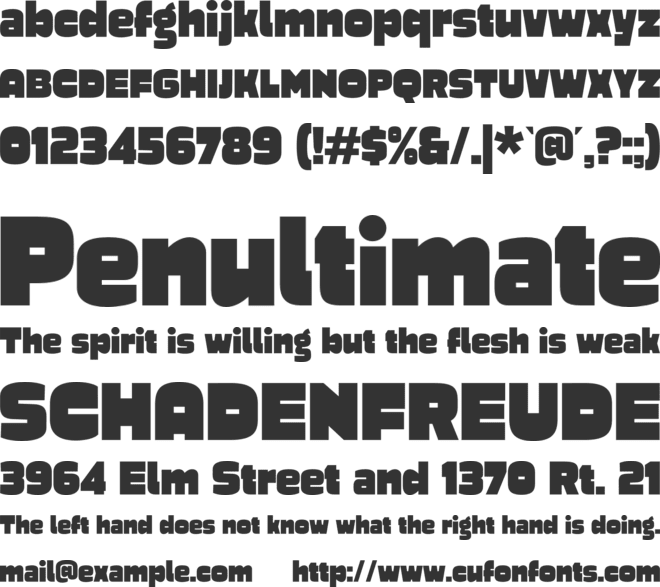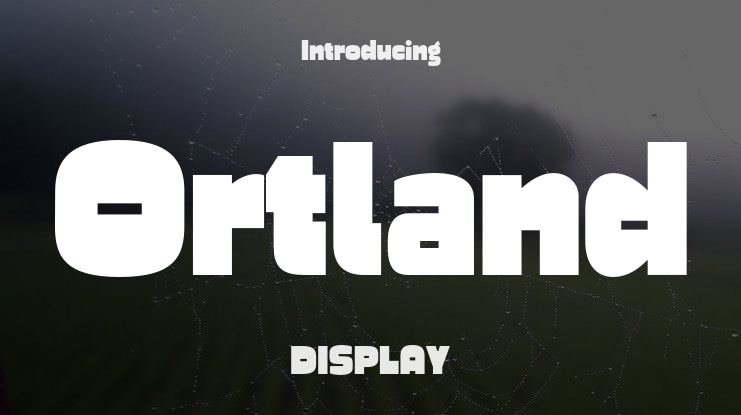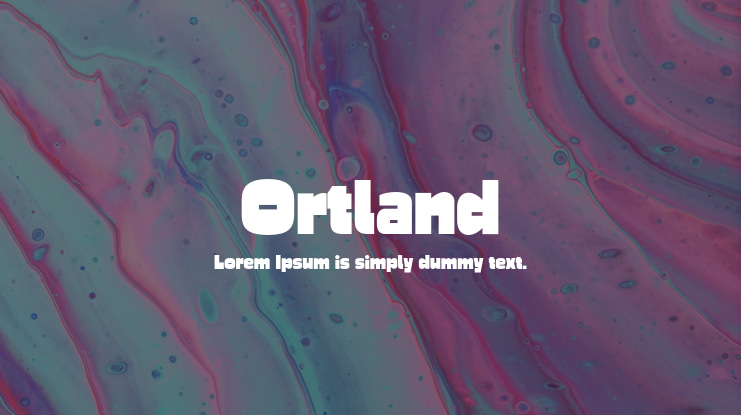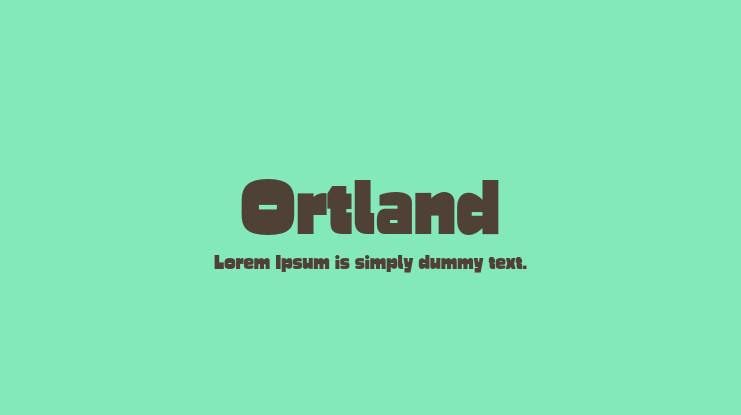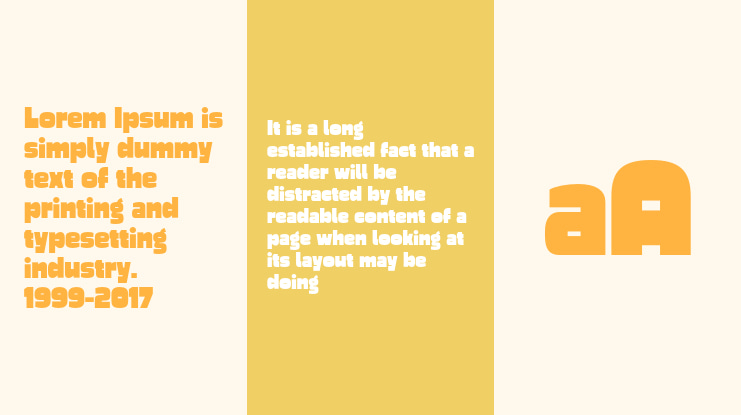
Ortland Font
Ortland is a display typeface designed in an urban style, featuring a bold and contemporary look. This font includes uppercase and lowercase letters, numbers, symbols, and supports multiple languages.